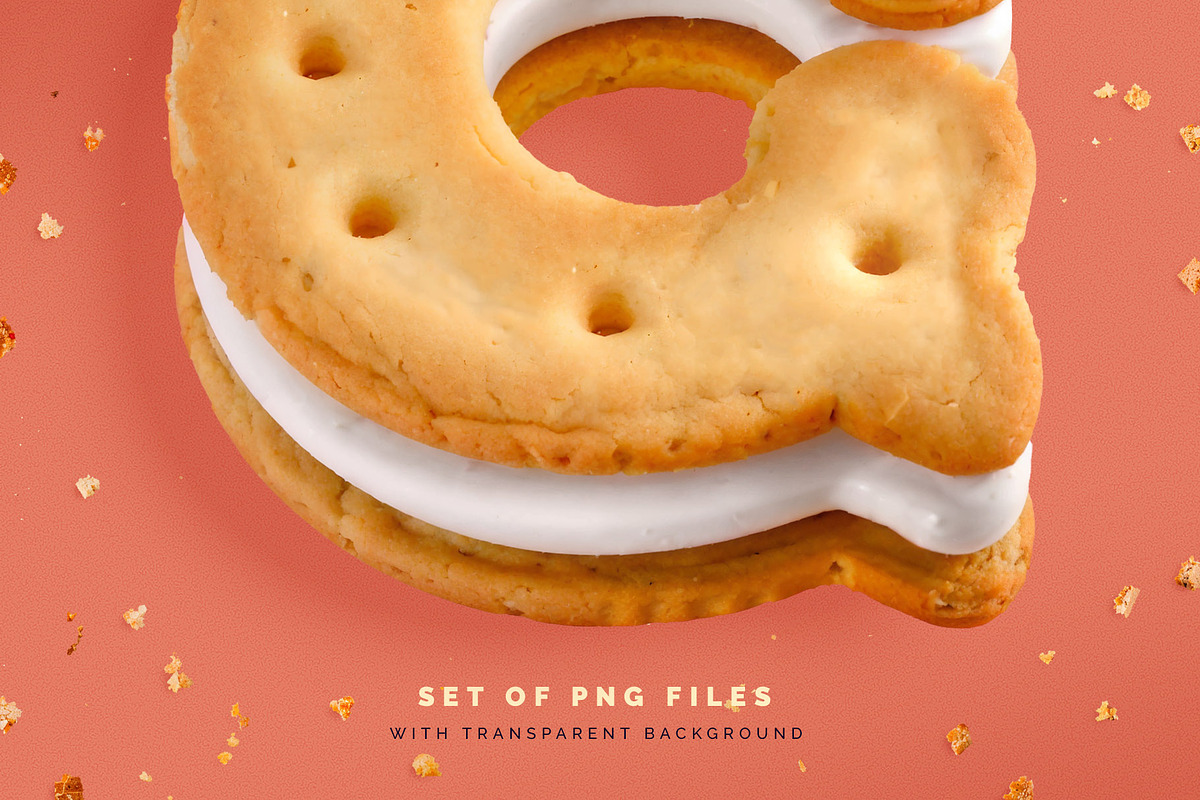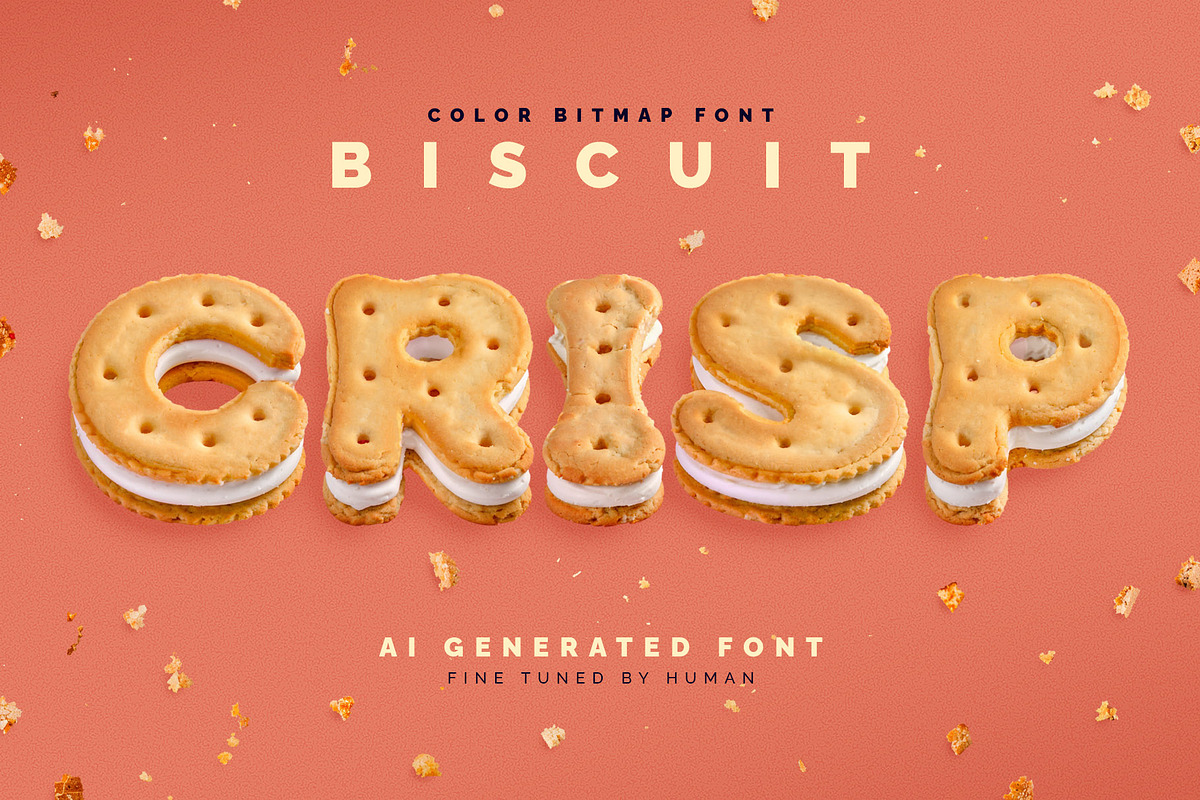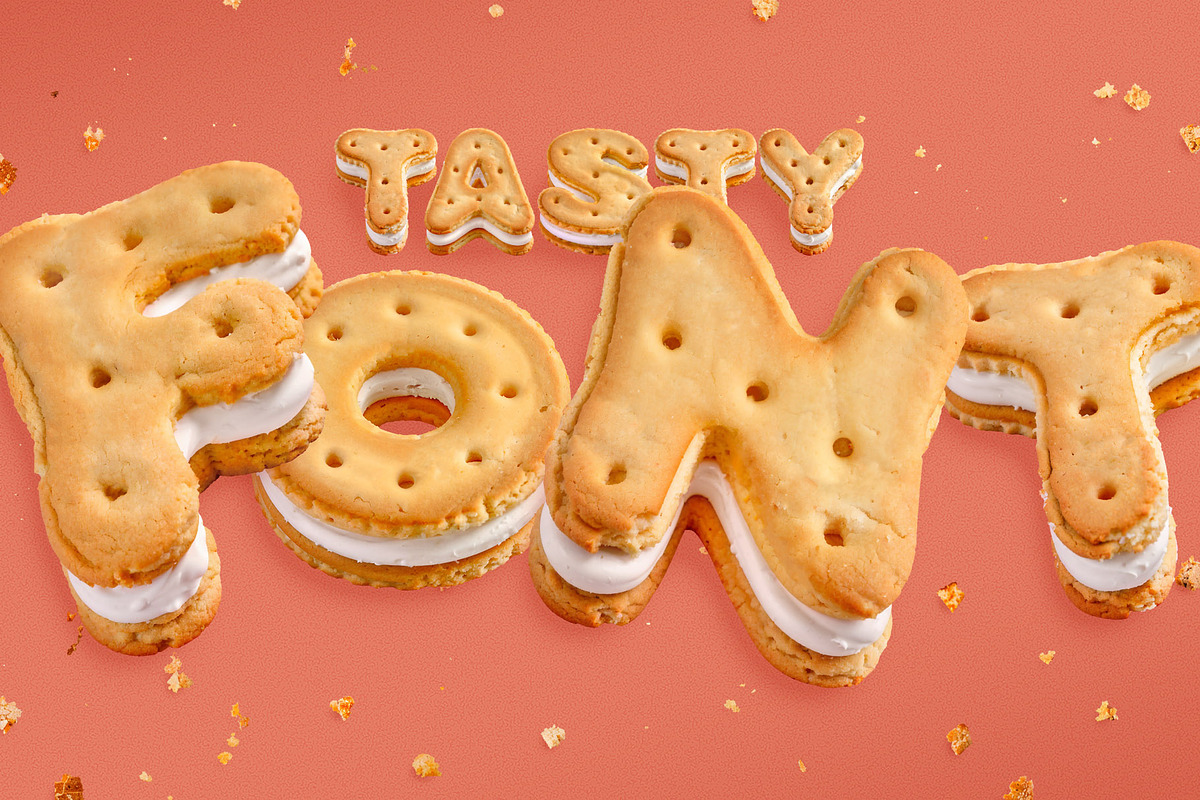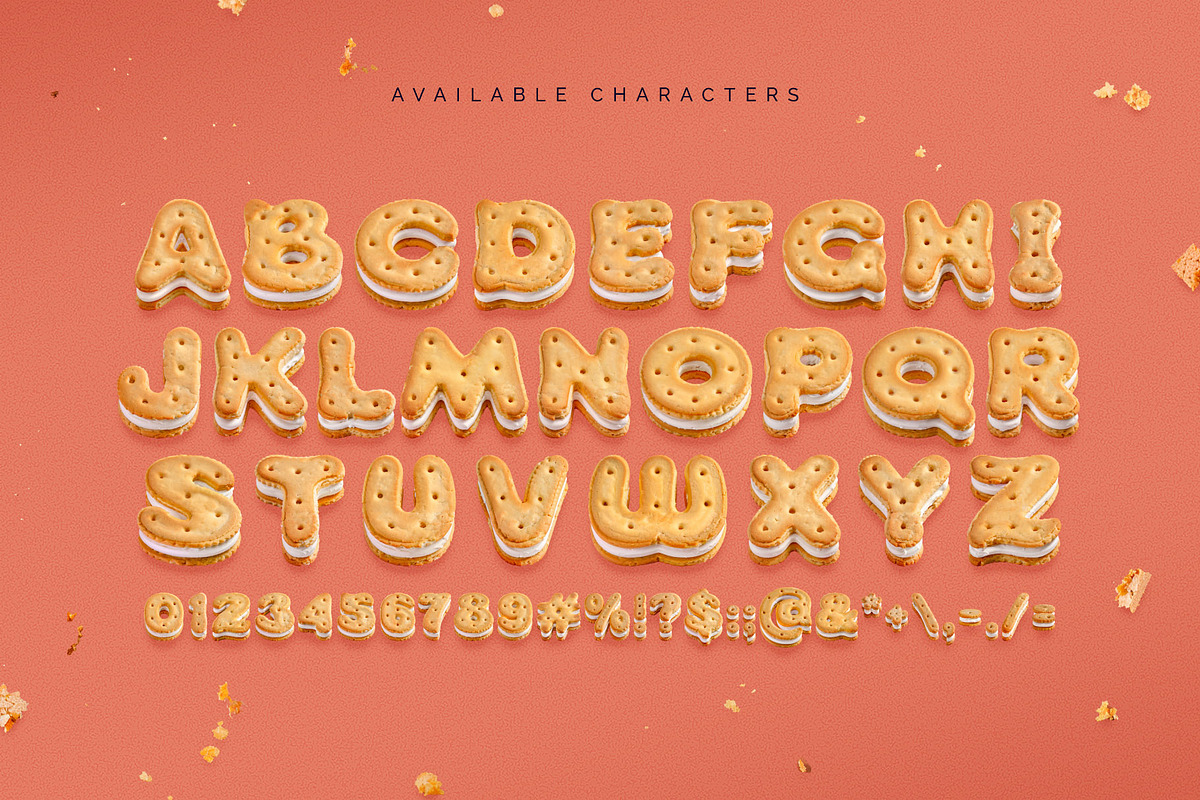
Biscuit Crisp - Color Bitmap Font
Introducing Biscuit Crisp, a crunchy tasty font with letters shaped like sandwich cookies. This font was created using cutting-edge generative AI technology and fine-tuned manually to give it a more human touch.
Consider that the font supports only the English language and basic punctuation. Be sure to review the included screenshot for a complete list of available characters.